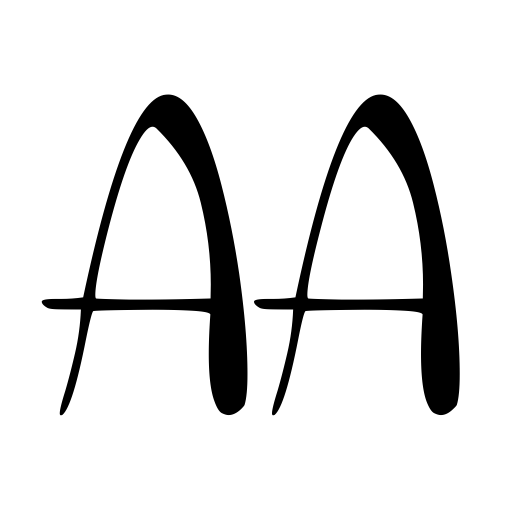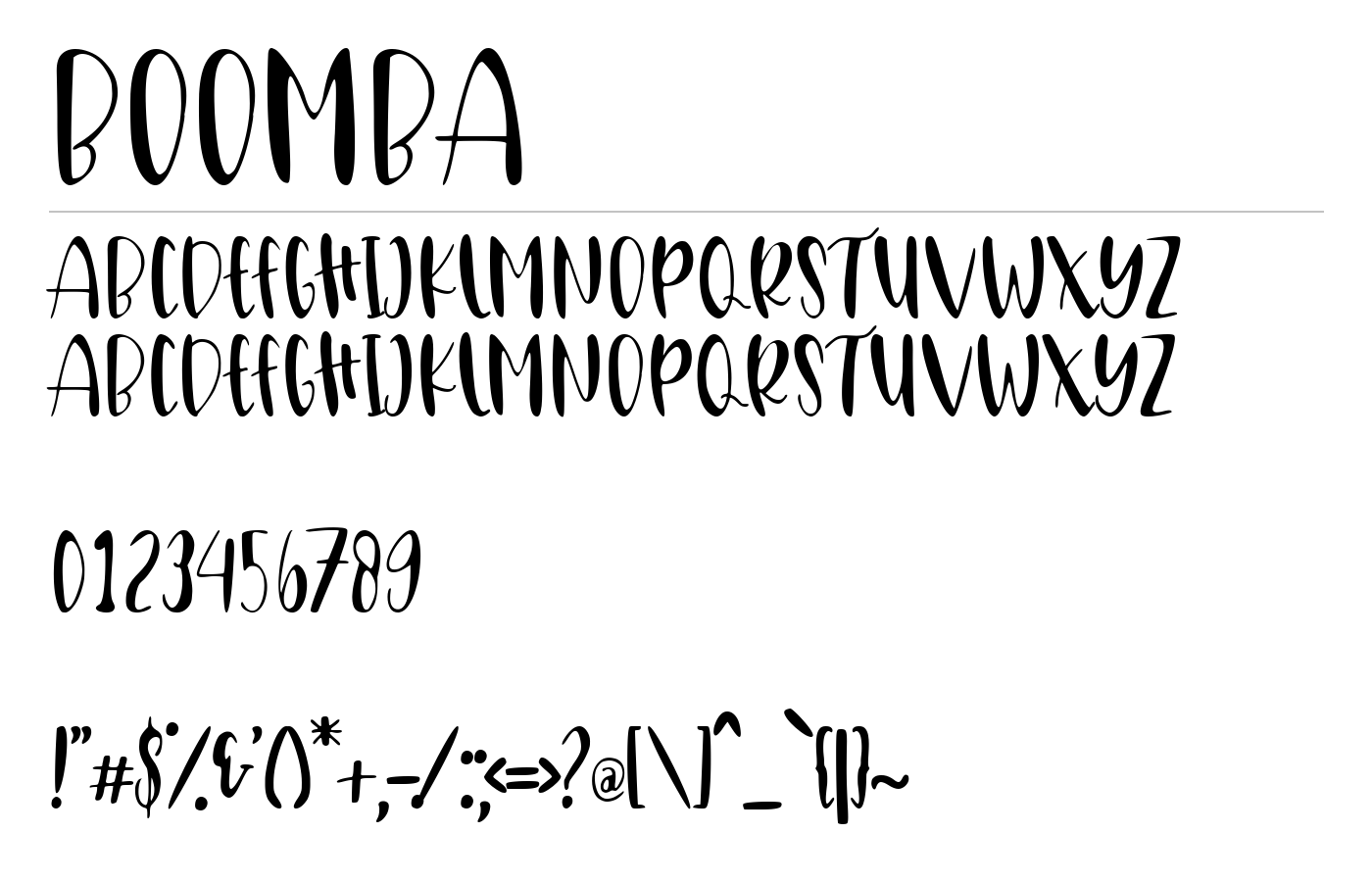
Boomba is a playful and lively handwritten font with a tall, narrow structure and smooth, curvy strokes that bring a friendly, informal vibe. Its slender letterforms and quirky details make it ideal for creative projects like invitations, branding, and posters where a fun and approachable personality is desired. This font captures a whimsical charm while maintaining good readability, perfect for adding a personal touch to your designs.
Boomba Font
About Boomba Font
| Font family | Boomba Font |
| Designer | Arief Tri Sulistiyono |
| Trademark | Supersemar Letter |